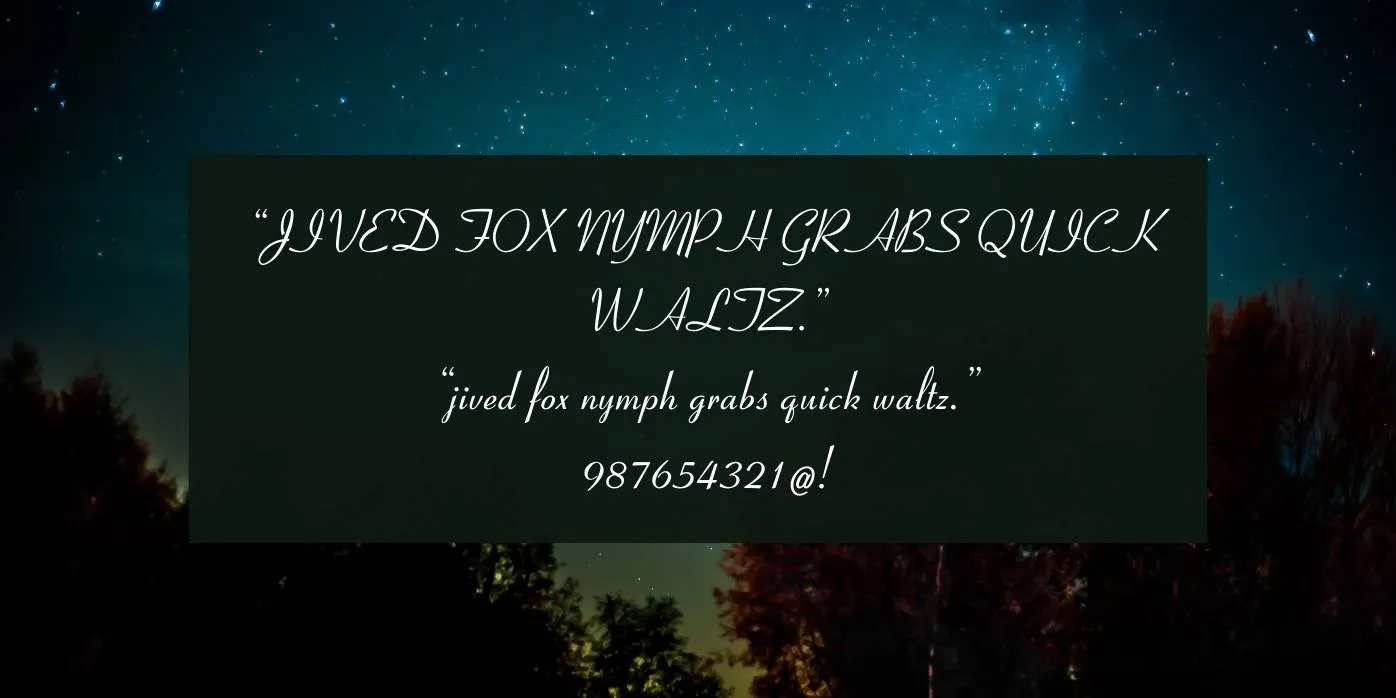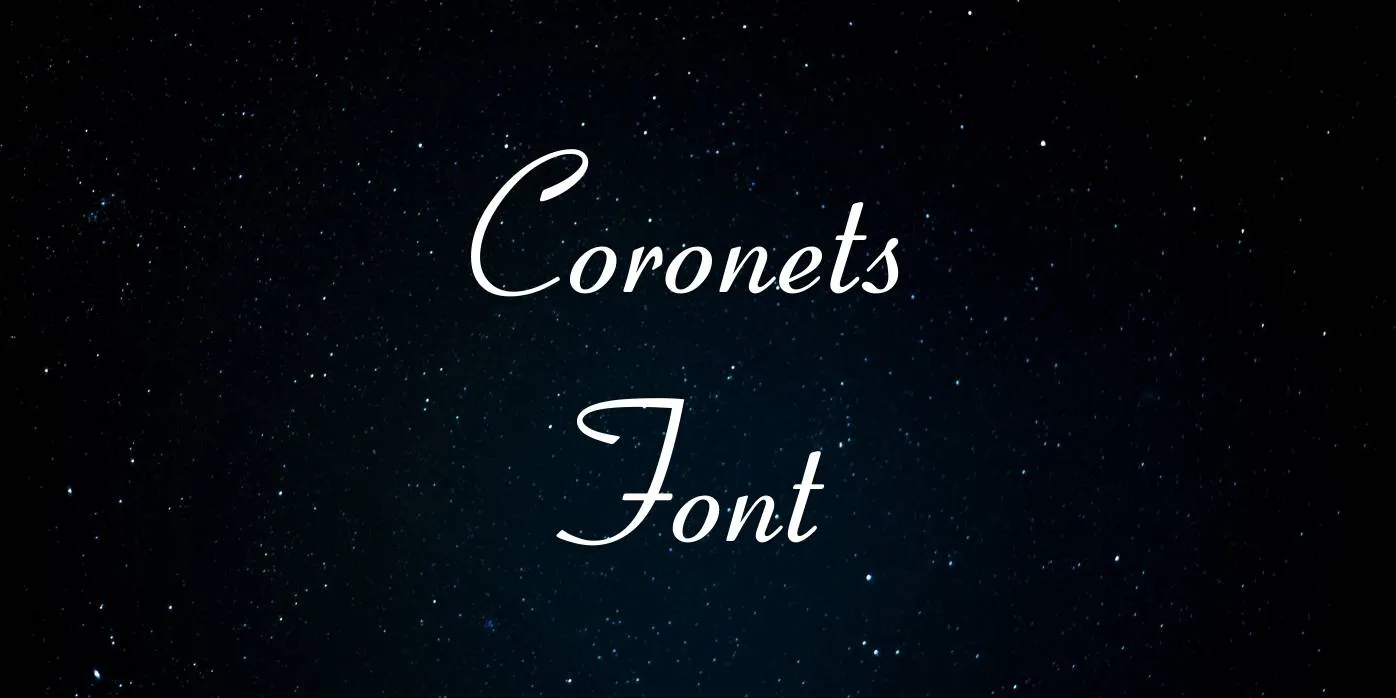
Coronets Font
Coronets is a script typeface that was designed in the early 1900s by American Type Founders (ATF). The font was inspired by the ornate letters used on coronets, which are small crown-like headpieces. This font was often used on invitations and other important documents. The font has a very distinct style that is both elegant and stylish.
The letters are very ornate and have a lot of flourishes. The font is also very readable, which makes it perfect for invitations and other important documents. If you are looking for a font that is both stylish and readable, then this font is the perfect font for you. The generator tool will help you create a unique and customized font for your website or blog.